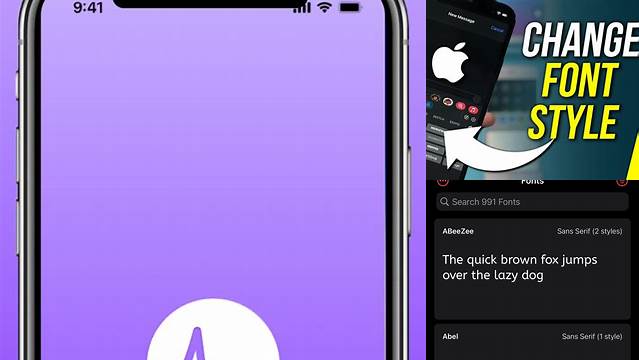
IPhone 7 Fonts: Style Your Device
Understanding iPhone 7 Font Customization Options
Hey guys, let's dive into the exciting world of customizing your iPhone 7's look! When we talk about fonts for iPhone 7, it's important to know that Apple has a bit of a closed system. Unlike Android, you can't just download and install any font you want to use system-wide for everything β like your text messages, notes, or even the main iOS interface. This is a common point of confusion, and it's totally understandable why people want to change their iPhone 7 fonts to something more unique. The good news is, while you can't overhaul the entire system font, there are still some cool ways to inject your personality and experiment with different typography. We'll explore how apps can help, what limitations exist, and how to get the most out of the font options available for your iPhone 7. It's all about understanding the boundaries and working within them to achieve a look that's totally you. So, buckle up, and let's make your iPhone 7 look amazing with the right fonts!
Exploring Third-Party Font Apps for iPhone 7
So, you're looking for fonts for iPhone 7 and wondering how to actually get them onto your device. This is where third-party apps come into play, and they're pretty neat! While, as we mentioned, you can't change the system font globally, these apps offer a fantastic workaround, especially for creative projects. Think about apps designed for graphic design, social media post creation, or even just fun text editors. These applications often come bundled with a wide array of stylish fonts that you can use within the app itself. For example, if you're crafting a cool Instagram story or designing a flyer in an app like Canva or Over, you'll have access to dozens, sometimes hundreds, of different fonts. You can then save your creation with the chosen font and share it. It's not a direct system-wide change, but it's a super effective way to use unique fonts on your iPhone 7 for specific purposes. Many of these apps allow you to import your own fonts too, giving you even more control. Just search the App Store for 'font apps,' 'text editors,' or 'design apps' and you'll find plenty of options to get you started on your font adventure. Remember, the key is to find apps that allow you to use these fonts in your content creation!
How to Change Fonts in Specific iPhone 7 Apps
Alright, let's get practical about using fonts for iPhone 7 in the apps you actually use daily. While the core iOS interface font remains standard, many individual applications give you the freedom to change the text style within them. This is especially true for note-taking apps, journaling apps, and social media platforms. For instance, if you're using an app like Notes, you might be limited to the default system fonts, but if you download a dedicated note-taking app from the App Store, it might offer a selection of custom fonts. Similarly, for social media, apps like Instagram, Facebook, and Twitter often have built-in text styling options for posts or stories. You won't be changing the app's font itself, but rather the font of the text you type into the app. This is a crucial distinction when looking for iPhone 7 font solutions. Always check the app's settings or editing tools for font selection. Many keyboards also offer different styles of text you can use, which we'll touch on later. So, while a global change isn't possible, exploring within your favorite apps can still lead to a more personalized typing experience!
Using Custom Keyboards for iPhone 7 Fonts
One of the most popular and accessible ways to play with fonts for iPhone 7 is by using custom keyboard apps. Guys, this is a game-changer if you want to add some flair to your typing, especially in apps that don't offer their own font choices. These keyboards work by replacing your standard iOS keyboard with one that has built-in font styles. When you're typing a message, a comment, or even an email, you can simply switch to your custom keyboard and select a different font style. It's super easy to use and makes your text stand out. You'll find a ton of these apps on the App Store β just search for 'custom keyboards' or 'font keyboards.' Some popular ones even offer unique stylistic fonts, like bold, italics, script, or more decorative options. Keep in mind that these fonts are essentially special characters that the keyboard generates. This means that while they look cool on your iPhone 7, they might not render perfectly on every single device or platform. However, for most social media and messaging apps, they work brilliantly. Itβs a fantastic way to express yourself with cool iPhone 7 fonts without needing complex workarounds. Remember to enable the custom keyboard in your iPhone's settings after downloading it!
iPhone 7 Font Limitations and Workarounds
Let's be real, guys, when it comes to fonts for iPhone 7, there are definite limitations. Apple's iOS is designed for a consistent user experience, which means you can't just install any font file and have it appear everywhere. This is a major difference compared to other operating systems. So, if your goal is to change the font used for your home screen icons, system menus, or the default Messages app text globally, you're unfortunately out of luck without jailbreaking, which we strongly advise against due to security risks. However, that doesn't mean you can't get creative! The primary workaround is using apps that have their own built-in font libraries, as we've discussed. This means you can use custom fonts within those specific apps. Another workaround involves using special character keyboards. These keyboards generate text that looks like different fonts by using Unicode characters. While this allows you to type in stylish iPhone 7 fonts in most text fields, it's essential to understand that these aren't true font installations. They might not be universally compatible, meaning some people might see them as standard text. Despite these limitations, there are still plenty of ways to personalize your iPhone 7's text appearance for specific uses.
Understanding iOS Font Management on iPhone 7
When we talk about fonts for iPhone 7, it's super important to grasp how Apple handles font management within iOS. Unlike a desktop operating system where you can download and install font files directly into a system folder, iOS operates much more restrictively. The core system font β the one you see on your home screen, in Settings, and most default apps β is not user-changeable without resorting to potentially risky methods like jailbreaking. However, Apple does allow for font management in a more limited, app-centric way. Through the App Store, developers can create apps that include their own sets of fonts. You can then download these apps, and the fonts become available for use within that specific application. Think of it like a mini font library for each app you use. To manage these, you can go into Settings > General > Fonts. Here, you'll see a list of any downloaded fonts from compatible apps. You can even delete fonts from here if you wish. This is Apple's official, safe way of allowing iPhone 7 font customization, focusing on content creation and specific app experiences rather than a complete system overhaul. It keeps the user experience consistent and secure, which is Apple's priority, but still offers avenues for personalization.
Default iPhone 7 Fonts: What You Get Out of the Box
Let's talk about the fonts you get with your iPhone 7 straight out of the box. When you're using your device without any third-party apps or custom keyboards, you're interacting with Apple's default typeface. For the iPhone 7, this is primarily San Francisco (SF). This is a clean, modern, and highly legible font designed by Apple specifically for its devices. You'll see SF Pro Display used for larger text sizes and SF Pro Text for smaller sizes. This ensures optimal readability across different contexts. While it might not be the most exciting choice for everyone, the SF font family is incredibly well-designed. It's optimized for screen use, making text crisp and clear on the iPhone 7's display. You don't have direct control over changing this system-wide font, meaning the look of your notifications, messages, and general interface will remain consistent. However, knowing that you're using a premium, purpose-built font family like San Francisco means your iPhone 7 is already looking pretty sleek and professional. Think of it as a minimalist aesthetic that's hard to mess up. If you're aiming for a clean and uncluttered look, the default iPhone 7 fonts are actually a fantastic starting point!
Creative Font Usage in Notes and Reminders on iPhone 7
Want to jazz up your notes and reminders on your iPhone 7? While the built-in Notes app primarily uses the system font (San Francisco), there are ways to inject more creative fonts for iPhone 7 into your organizational tasks. If you're looking for more variety, consider downloading a dedicated note-taking app from the App Store. Many of these apps, like Bear, Evernote, or GoodNotes, come with their own font selections or allow you to import fonts. This means you can write meeting minutes in a formal serif font, jot down ideas in a playful script, or create to-do lists in a bold sans-serif. For reminders, the approach is similar. While the default Reminders app sticks to the system font, you can create reminders within other apps that do support custom fonts. For example, you could set a reminder in a project management app or a journaling app that uses a specific font you've chosen. It's all about finding the right tool for the job. Using different iPhone 7 fonts in your notes and reminders can make them more visually appealing and even help you categorize information at a glance. It's a small change that can make a big difference in how you interact with your digital notes and tasks. So, explore those app store options and see which ones fit your style!
Styling Text for Social Media with iPhone 7 Fonts
Social media is where you can really go wild with fonts for iPhone 7! Platforms like Instagram, Facebook, Twitter, and TikTok are fantastic playgrounds for experimenting with unique text styles. While you typically can't change the main app's font, you can use custom fonts for the text you post. Many apps have built-in text editors that offer a variety of stylish fonts. For Instagram Stories, for example, you have several font options to choose from when you type text onto your photos or videos. For feed posts or tweets, you can often use special character keyboards (the ones we talked about earlier) to create text that looks different. Just copy and paste the styled text into your caption or tweet. Websites and apps like LingoJam or CoolSymbol allow you to convert your regular text into these stylized formats, which you can then use on your social media. This is a great way to make your captions pop, highlight important messages, or just add a bit of personality to your online presence. Remember, while these iPhone 7 fonts look cool, ensure they are still legible for your audience. Using a mix of standard and stylized text can be very effective. Have fun making your social media content stand out!
Using Decorative Fonts for Special Occasions on iPhone 7
Got a special event coming up? You can definitely use decorative fonts for iPhone 7 to add some extra sparkle! Think birthdays, holidays, anniversaries, or even just a fun weekend announcement. Apps with custom keyboards or design tools often include a wealth of decorative fonts β think sparkly, festive, quirky, or elegantly script-like styles. These are perfect for creating eye-catching social media posts, digital invitations, or personalized messages. For example, you could design a